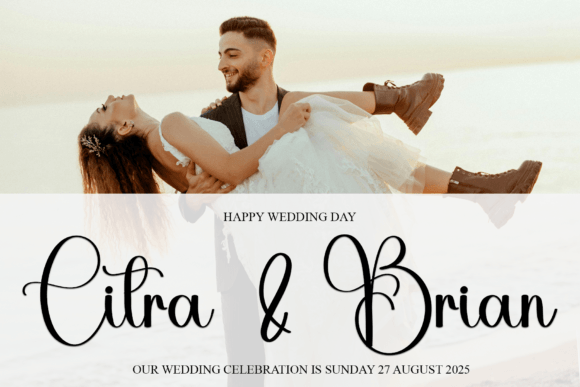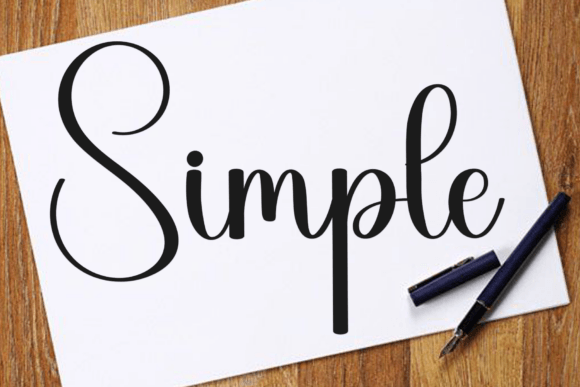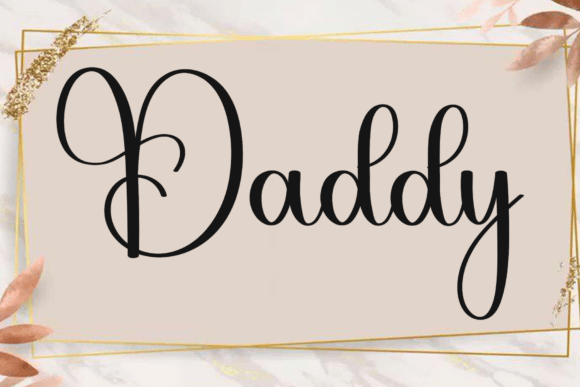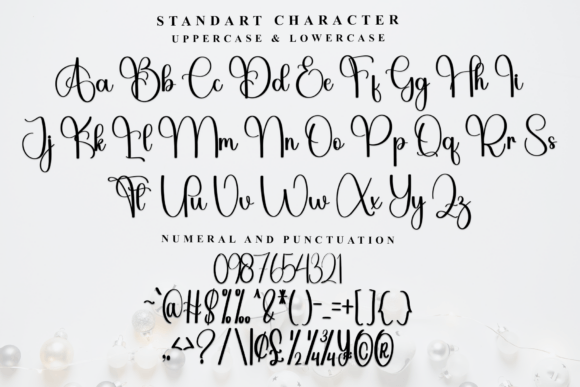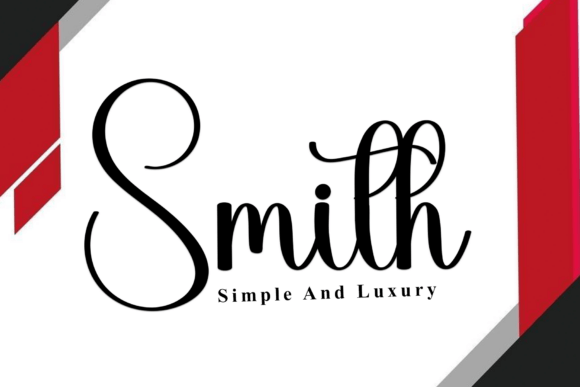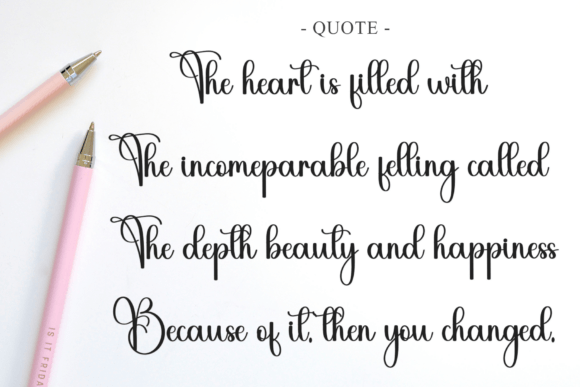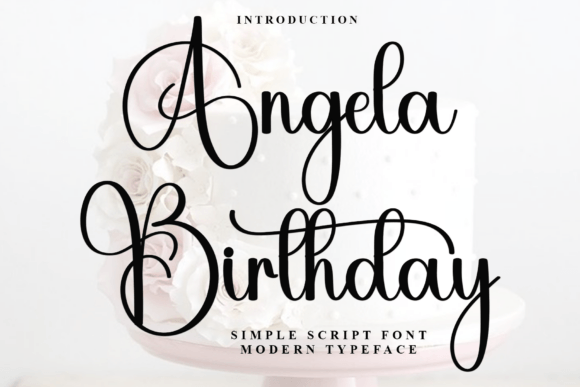
Introducing Angela Birthday Font: A Timeless Handwritten Delight
Are you on the hunt for a font that adds a touch of elegance and whimsy to your designs? Look no further than Angela Birthday Font, a lovely and timeless handwritten font that’s perfect for creating eye-catching logos, branding, and quotes. With its unique and beautiful touch, this font is sure to make your design come alive!
What Makes Angela Birthday Font So Special?
Angela Birthday Font is a standout in the world of typography, boasting a range of characteristics that make it a top choice for designers and crafters. Here are just a few reasons why:
- Handwritten charm: Angela Birthday Font has a warm, handwritten feel that’s perfect for adding a personal touch to your designs.
- Unique and beautiful touch: Every letter in this font has been carefully crafted to have its own unique character, making your designs truly one-of-a-kind.
The Benefits of Using Angela Birthday Font
So why should you choose Angela Birthday Font for your next design project? Here are just a few benefits of using this lovely font:
- Easily create eye-catching logos: With its unique and beautiful touch, Angela Birthday Font is perfect for creating logos that stand out from the crowd.
- Elevate your branding: This font is ideal for adding a touch of elegance and sophistication to your branding, helping you to establish a strong and recognizable identity.
- Add a personal touch to your quotes: Whether you’re creating inspirational quotes, social media graphics, or promotional materials, Angela Birthday Font is a great choice for adding a personal and handwritten touch.
Design Ideas to Get You Started
Still not sure how to use Angela Birthday Font? Here are a few design ideas to get you started:
- Create a custom logo: Use Angela Birthday Font to create a unique and eye-catching logo for your business or brand.
- Make a quote graphic: Add a personal touch to your favorite quotes using Angela Birthday Font.
- Design a social media graphic: Use this font to create eye-catching social media graphics that showcase your brand’s personality.